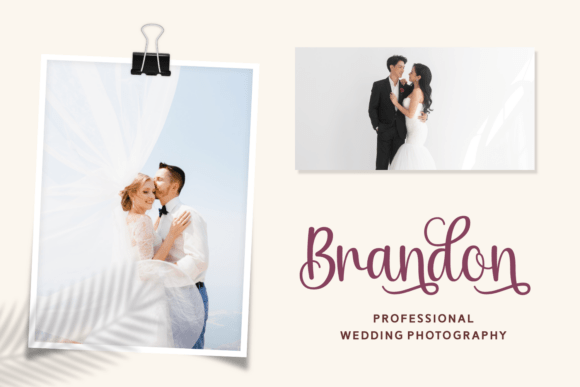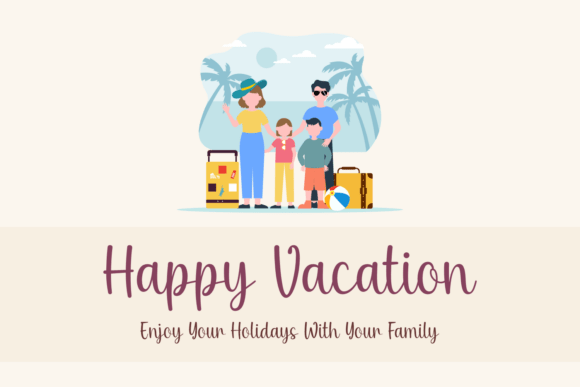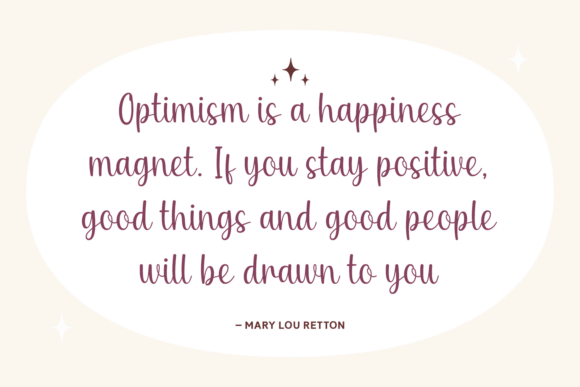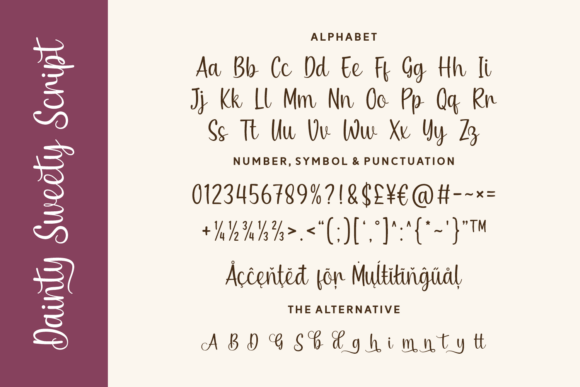
Dainty Sweety Font: The Perfect Blend of Whimsy and Sophistication
In the world of typography, fonts play a crucial role in conveying the tone and personality of a brand or design. For designers and crafters looking for a font that embodies warmth, friendliness, and a touch of sparkle, Dainty Sweety is an excellent choice. This charming script font combines whimsical curves with a sweet personality, making it perfect for a variety of creative projects.
The Characteristics of Dainty Sweety
Dainty Sweety is a script font that boasts soft strokes, elegant swashes, and a dash of sparkle. Its unique blend of youthful energy and stylish sophistication makes it an ideal choice for designers and crafters seeking a font that can add a touch of magic to their work. The font’s soft strokes and elegant swashes give it a feminine and delicate feel, while its sparkle adds a hint of playfulness and whimsy.
Dainty Sweety is a versatile font that can be used for a wide range of projects, including:
- Greeting Cards: Add a touch of warmth and personality to your greeting cards with Dainty Sweety. Its soft strokes and elegant swashes make it perfect for creating beautiful and heartfelt cards for special occasions.
- Kids’ Designs: Dainty Sweety is an excellent choice for kids’ designs, such as children’s books, posters, and stickers. Its playful and whimsical feel will surely delight young audiences.
- Packaging: Use Dainty Sweety to add a touch of elegance and sophistication to your packaging designs. Its soft strokes and sparkle make it perfect for creating eye-catching and memorable packaging.
- Playful Branding: Dainty Sweety is an excellent choice for brands that want to convey a sense of warmth, friendliness, and playfulness. Its unique blend of whimsy and sophistication makes it perfect for creating a brand identity that stands out.
Why Choose Dainty Sweety?
So, why choose Dainty Sweety over other fonts? Here are a few reasons:
- Unique Blend of Whimsy and Sophistication: Dainty Sweety strikes the perfect balance between youthful energy and stylish sophistication, making it an excellent choice for designers and crafters seeking a font that can add a touch of magic to their work.
- Versatility: Dainty Sweety can be used for a wide range of projects, from greeting cards to packaging, and from kids’ designs to playful branding.
- Elegant Swashes: The font’s elegant swashes add a touch of elegance and sophistication to any design, making it perfect for creating beautiful and memorable designs.
Tips for Using Dainty Sweety
Here are a few tips for using Dainty Sweety in your designs:
- Pair it with Other Fonts: Dainty Sweety can be paired with other fonts to create a unique and visually appealing design. Try pairing it with a bold font for a striking contrast.
- Experiment with Colors: Dainty Sweety looks great in a variety of colors. Experiment with different colors to find the one that best suits your design.
- Use it for Headings: Dainty Sweety is perfect for headings and titles. Use it to add a touch of elegance and sophistication to your design.
In conclusion, Dainty Sweety is a charming script font that combines whimsical curves with a sweet personality. Its unique blend of youthful energy and stylish sophistication makes it perfect for a variety of creative projects, from greeting cards to packaging, and from kids’ designs to playful branding. With its soft strokes, elegant swashes, and touch of sparkle, Dainty Sweety is sure to add a touch of magic to any design.
Whether you’re a designer or crafter, Dainty Sweety is an excellent choice for anyone looking for a font that can convey warmth, friendliness, and a little dazzle. So, why not give it a try and see how it can elevate your designs to the next level?